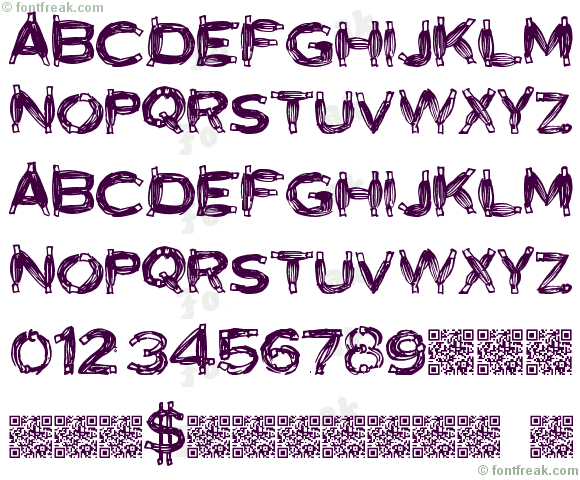
Biology
Biology, designed by Xerographer Fonts in 2013, is a unique display font that embodies a playful and organic aesthetic. This font falls under the decorative category, characterized by its whimsical, hand-drawn style that evokes a sense of creativity and curiosity. The strokes exhibit a variable weight, giving the letters an uneven, yet charmingly cohesive appearance. The spacing between characters is well-balanced, allowing for readability while maintaining a fun and lively feel. The design features decorative elements that resemble natural forms, making it an ideal choice for projects that require an artistic touch.
The Biology font is versatile for various use cases. It shines in educational materials, particularly for biology-themed presentations or posters, where it can effectively engage students and audiences alike. Additionally, it is perfect for children's books or science-related content that aims to spark interest in the natural world. The font can also be utilized in branding for eco-friendly products or businesses, communicating a commitment to sustainability. For graphic designers looking to create unique wedding invitations or event posters, Biology adds an element of creativity that stands out in any design.
What sets the Biology font apart is its ability to blend charm with functionality. Its distinct, hand-drawn appearance captures attention while remaining legible, making it both a delightful and practical choice for a variety of projects. Whether you're crafting educational materials or designing eye-catching promotional content, Biology is a font that inspires and engages.